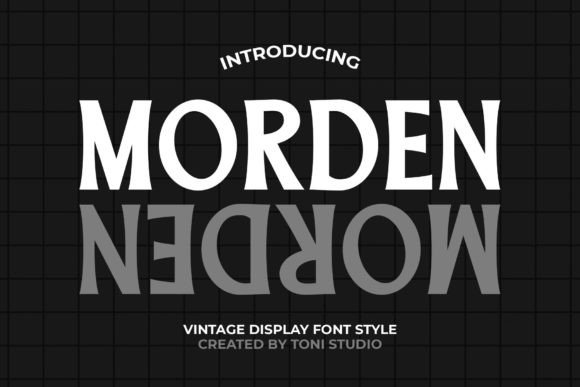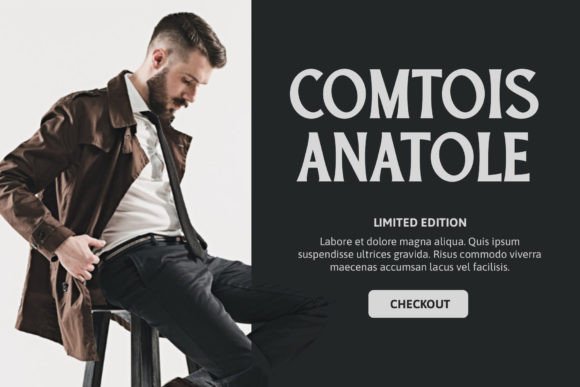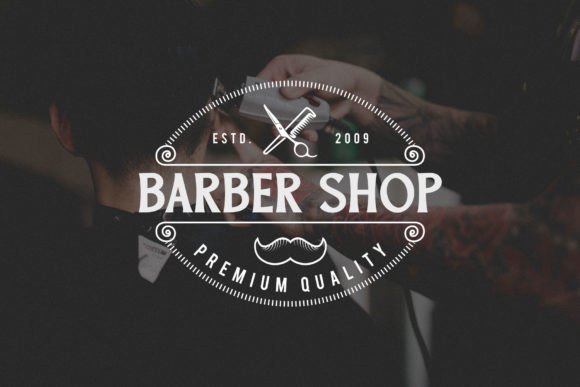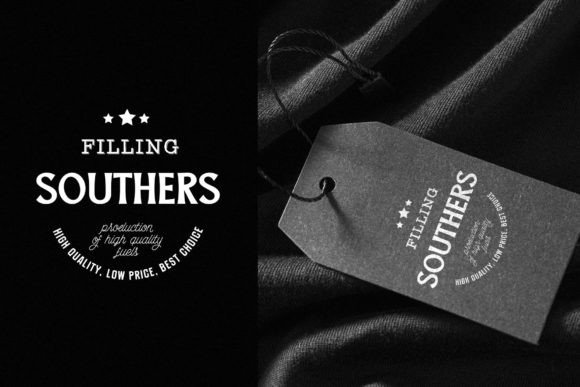
Morden Font: A Modern Vintage Serif for Logos & Branding Design
About the Morden Font
The Morden Font offers a perfect balance of form and function for your design needs. Morden serif display, a masculine vintage display font with a modern twist. This nostalgic font is super fun to work with and perfect for logos and designers but works really well for all purposes. Perfect for editorial, branding and poster design, etc.
Morden excels as a headline font for projects requiring a strong, vintage-inspired aesthetic. Its masculine character makes it ideal for branding initiatives targeting a mature, sophisticated audience, particularly in industries like automotive, spirits, or menswear. Avoid using Morden for large blocks of body text; its highly stylized forms are not optimized for readability in extended paragraphs.
Pairing Morden effectively depends on the desired emphasis. For a classic feel, consider pairing it with a clean, neutral sans-serif like Lato or Open Sans. To highlight its vintage quality, a complementary serif like Playfair Display or a slightly more modern geometric sans-serif could create an interesting contrast. Using a script font for smaller details can add an extra layer of sophistication.
Morden’s overall personality is bold and assertive yet retains a touch of refined elegance due to its serif details. It projects confidence and heritage, making it a powerful choice for brands seeking to communicate these qualities.